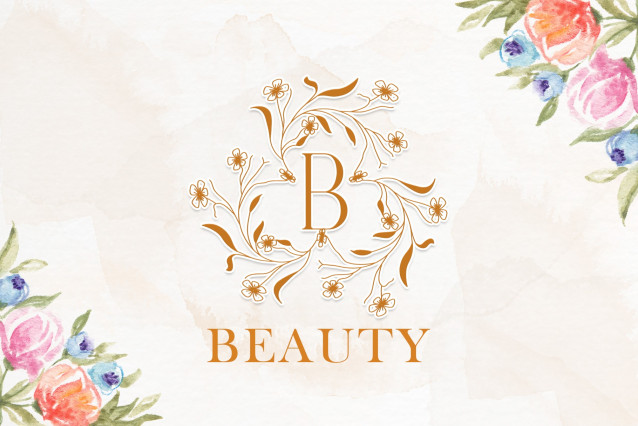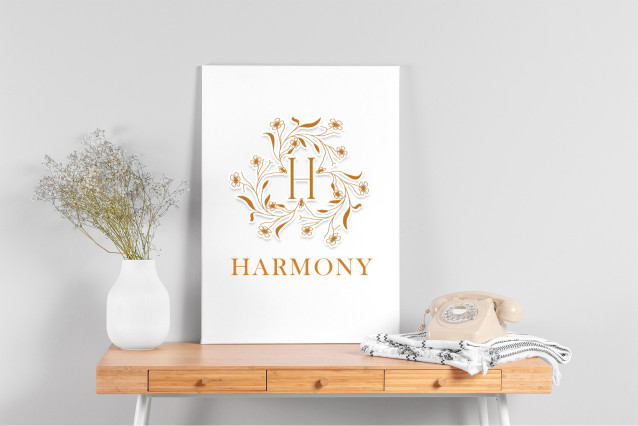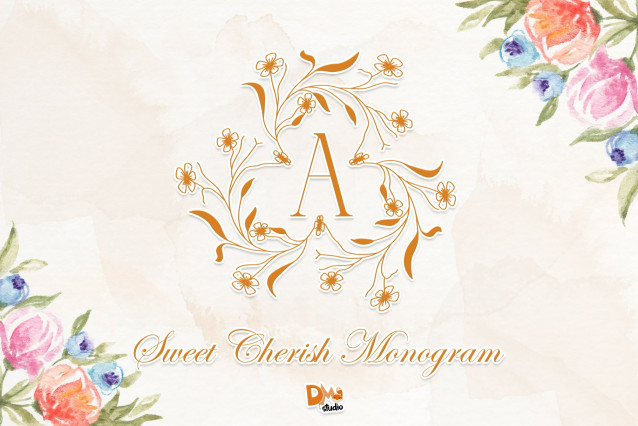
Sweet Cherish Monogram Font
Sweet Cherish Monogram is a whimsical and affectionate monogram font designed to bring warmth and beauty to your creative projects. Featuring delicately curved characters and soft ornamental accents, it’s perfect for wedding stationery, custom initials, gift tags, logos, and anything that calls for a tender, handmade feel.